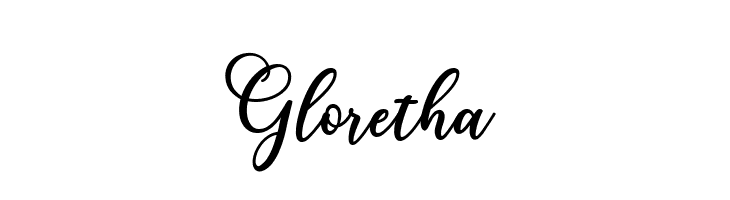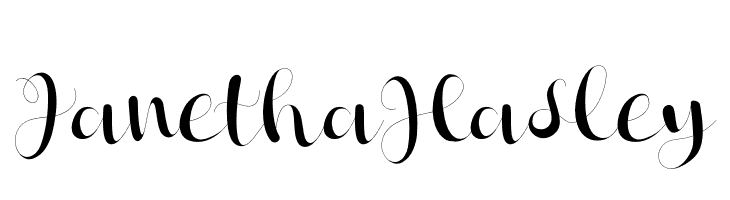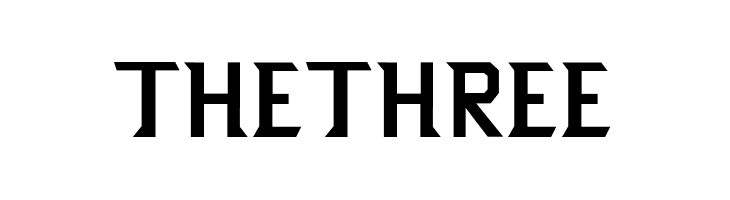
A sophisticated, high-contrast serif font with a modern and elegant style.
A bold, modern sans-serif font with clean lines and a slightly condensed style.
A bold, blocky font with a shadow line effect for a 3D appearance.
An elegant script font with ornate swirls and decorative flourishes.
A playful, hand-drawn font with tall, narrow characters and rounded edges.
A charming, elegant handwritten script with flowing, connected letters.
A charming and elegant handwritten font with fluid curves.
A bold, angular font with a futuristic and geometric design.
A modern, light sans-serif font with clean lines and excellent readability.
An elegant, high-contrast script font with decorative swashes and flourishes.